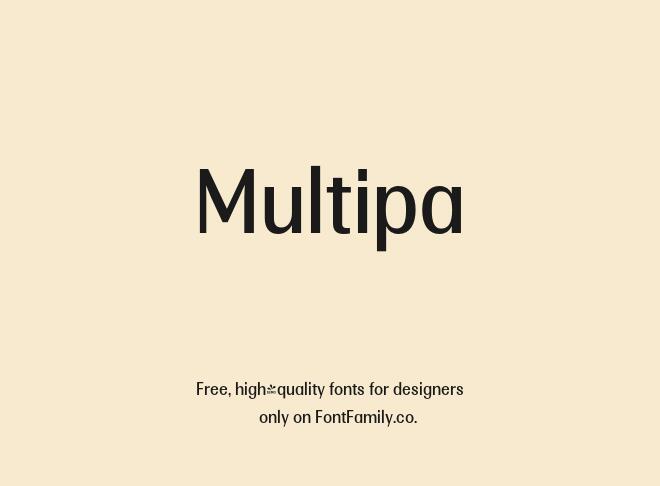
Multipa Font
Multipa Font is a modern, geometric and minimalistic typeface that stands out for its clean lines and simplicity. It's a sans serif font with an artistic flair, making it a great fit for both print and digital designs. Multipa Font is incredibly versatile, suitable for everything from logo design and branding to website headers and social media graphics. Its modern aesthetic makes it comparable to popular fonts like Futura and Avenir, but Multipa Font holds its own with a unique character set. The font is designed to be easy to read while still being visually interesting. It's a great choice for designers looking for a font that can adapt to a wide range of design contexts without losing its distinctive style.